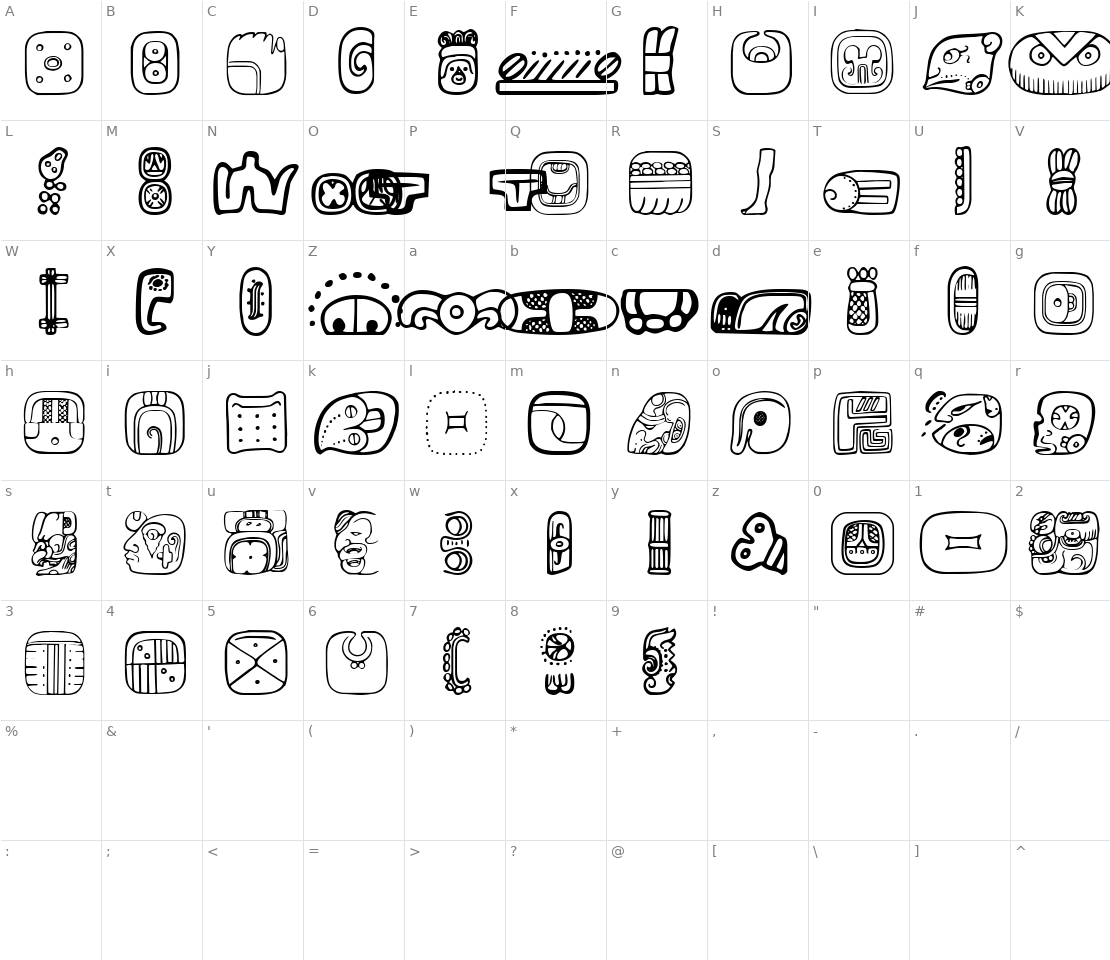
MesoAmerica Dings
MesoAmerica Dings is a dingbat font from Intellecta Design featuring a collection of symbols inspired by Mayan and Aztec iconography. The glyphs include tribal patterns, ancient motifs, and cultural imagery drawn from pre-Columbian Mesoamerican art. Useful as decorative elements in editorial layouts, themed design work, or anywhere you need ornamental accents with a sense of ancient civilizations.